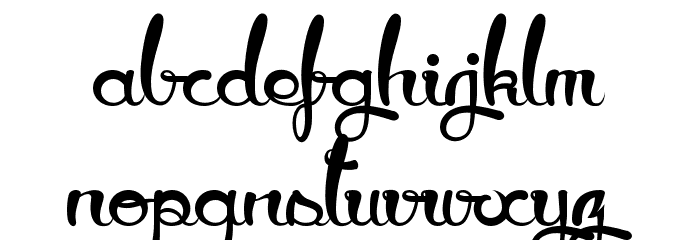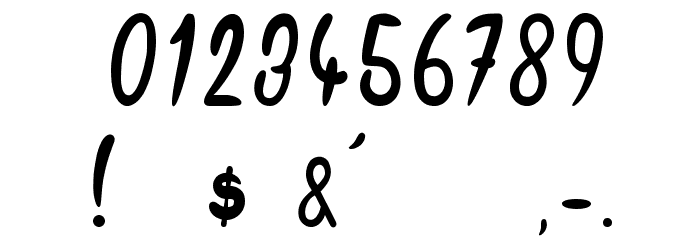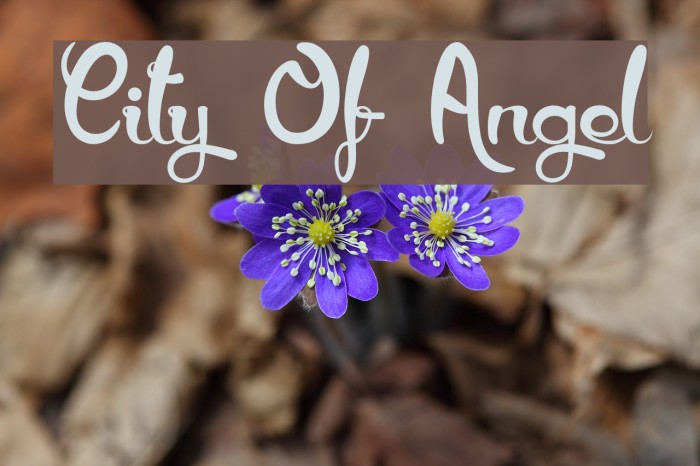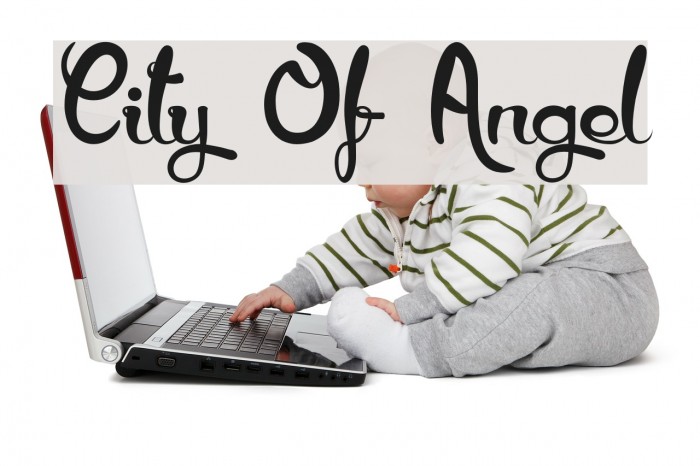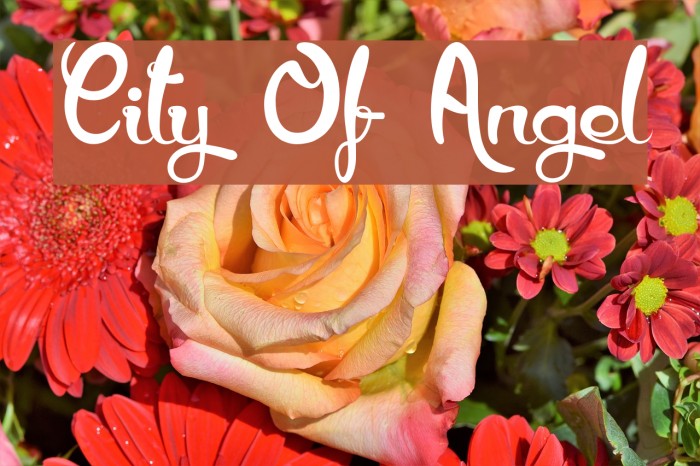
City Of Angel Font
This font features a playful and artistic script style, characterized by its fluid and dynamic strokes. The uppercase letters are bold and slightly whimsical, with unique flourishes that add a touch of elegance. The lowercase letters maintain a consistent flow, with some characters extending below the baseline, enhancing its handwritten appeal. Numbers are clear and legible, maintaining the same artistic flair as the letters. Special characters are creatively designed, complementing the overall aesthetic. The font's style is suitable for projects that require a personal and creative touch.
A playful and artistic script font with fluid, dynamic strokes.
- Proposed Projects: Ideal for invitations, greeting cards, branding, and creative design projects.
- Use Case: Logos, Headlines, Creative projects